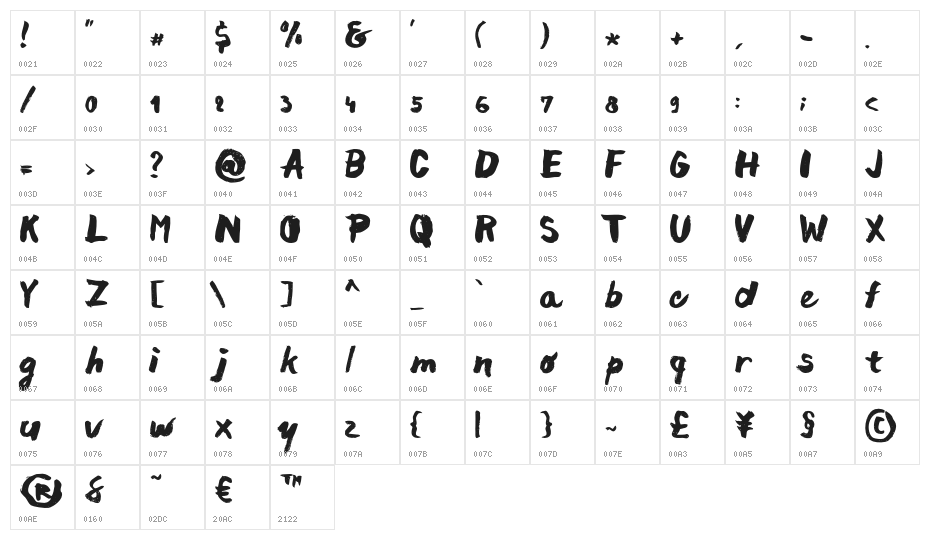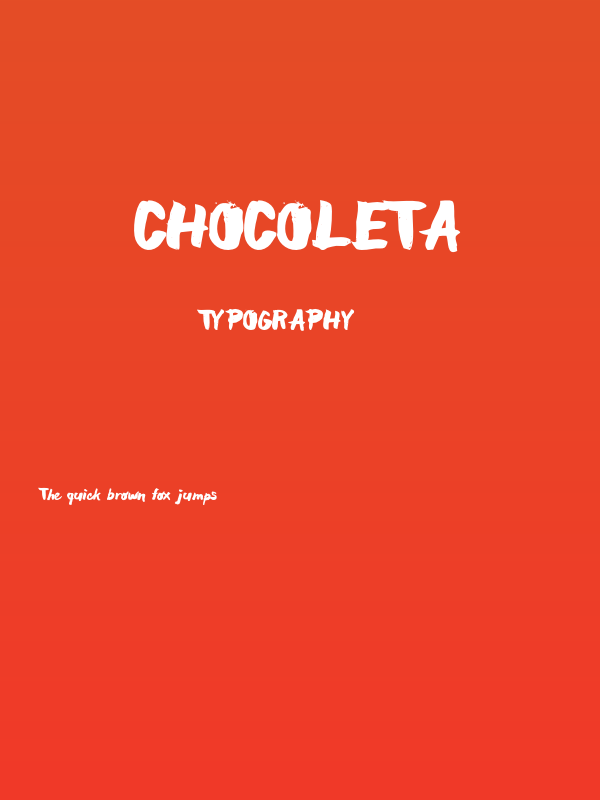
chocoleta Font
chocoleta Description
This font features a bold, expressive style with a hand-painted appearance. The letters are characterized by their thick strokes and uneven edges, giving them a dynamic and artistic feel. The uppercase and lowercase letters maintain a consistent style, with a slightly rough texture that adds to the font's charm. The numbers and special characters follow the same aesthetic, ensuring a cohesive look across all text elements. This font is ideal for projects that require a bold statement or a creative touch.
| Overall Style | Artistic, Expressive |
| Proposed Projects | Ideal for posters, artistic branding, album covers, and creative advertising. |